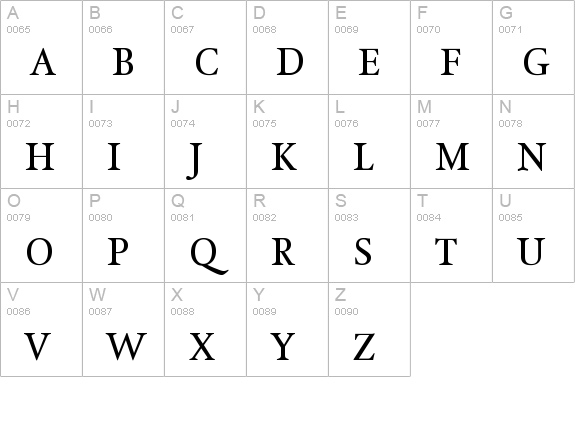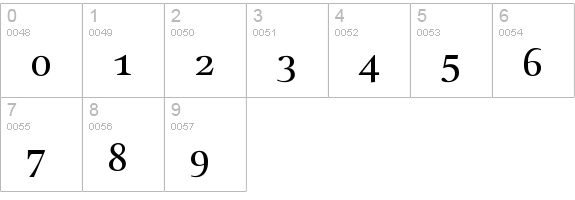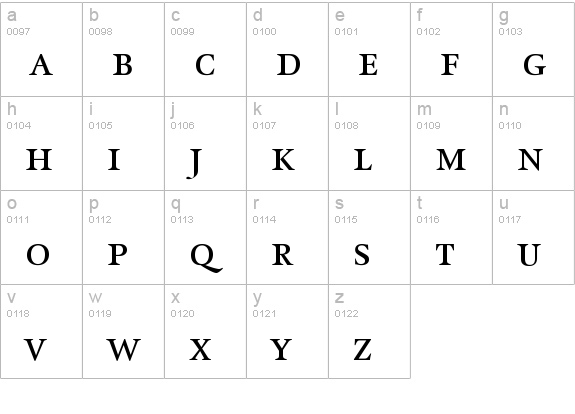
HollanderSCEF-Regular is the standard, neutral variant in the HollanderSCEF typeface family \xE2\x80\x94 well suited to general body text, paragraphs, and standard typographic work.
HollanderSCEF-Regular font is a versatile and modern typeface that combines elegance with readability. Its clean lines and balanced proportions make it perfect for a wide range of design projects, from branding to editorial design. The font features a unique blend of classic and contemporary elements, giving it a timeless appeal that will enhance any project. What sets HollanderSCEF-Regular font apart is that it is available for free download at FontsMarket.com. This means that you can easily access this high-quality font without any cost, making it a valuable addition to your design toolkit. Whether you're a professional designer or a hobbyist, HollanderSCEF-Regular font offers you the opportunity to elevate your designs with its sophisticated style and versatility. Download it today and see how it can enhance your next project!